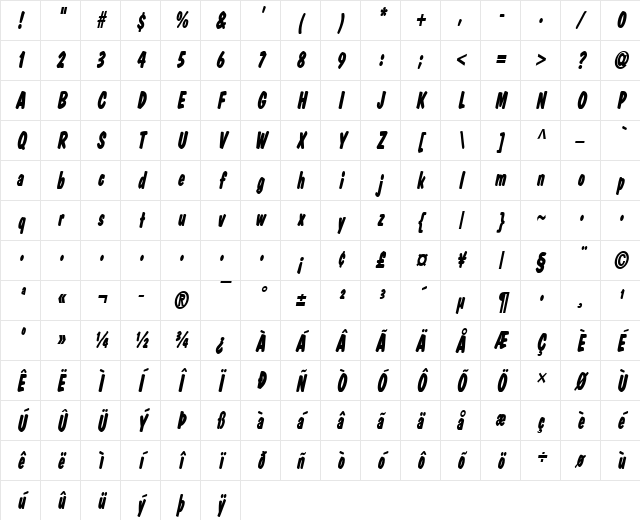
Danto Bold Italic
Danto Family
Danto Bold Italic
Design Context for Danto
Danto is a composed and adaptable typeface that performs quietly and consistently across a wide range of design contexts. The slanted form adds forward momentum and visual energy. Its bold stroke weight gives it real presence on the page.
Pro Tip: Use Danto for emphasis, pull quotes, and subheadings where its slanted energy can add rhythm to the layout.